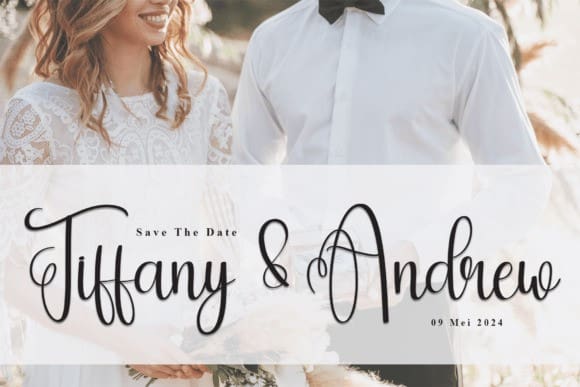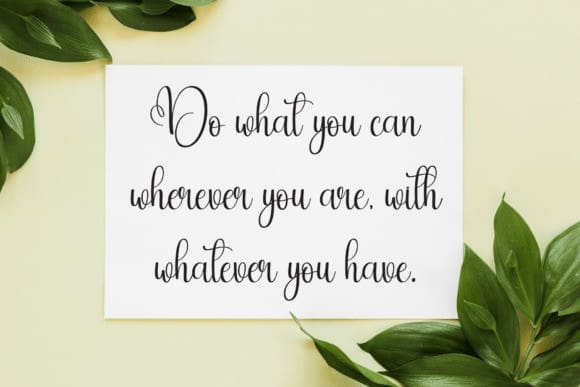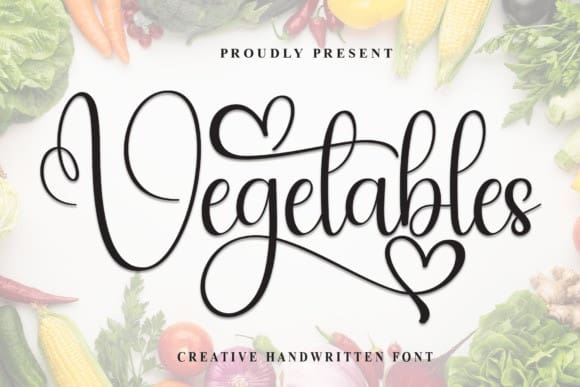
Vegetables Script Typeface
Vegetables Script Typeface is a charming handwritten font that exudes warmth and friendliness. With its smooth, flowing strokes and playful curves, it brings a sense of whimsy to invitations, packaging, and social media graphics. Spread joy and delight with the inviting charm of Vegetables.